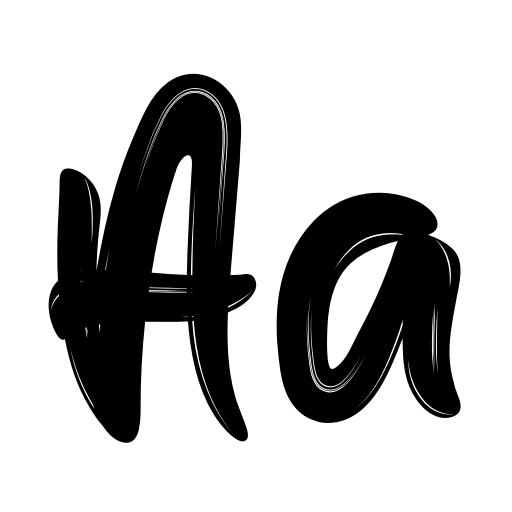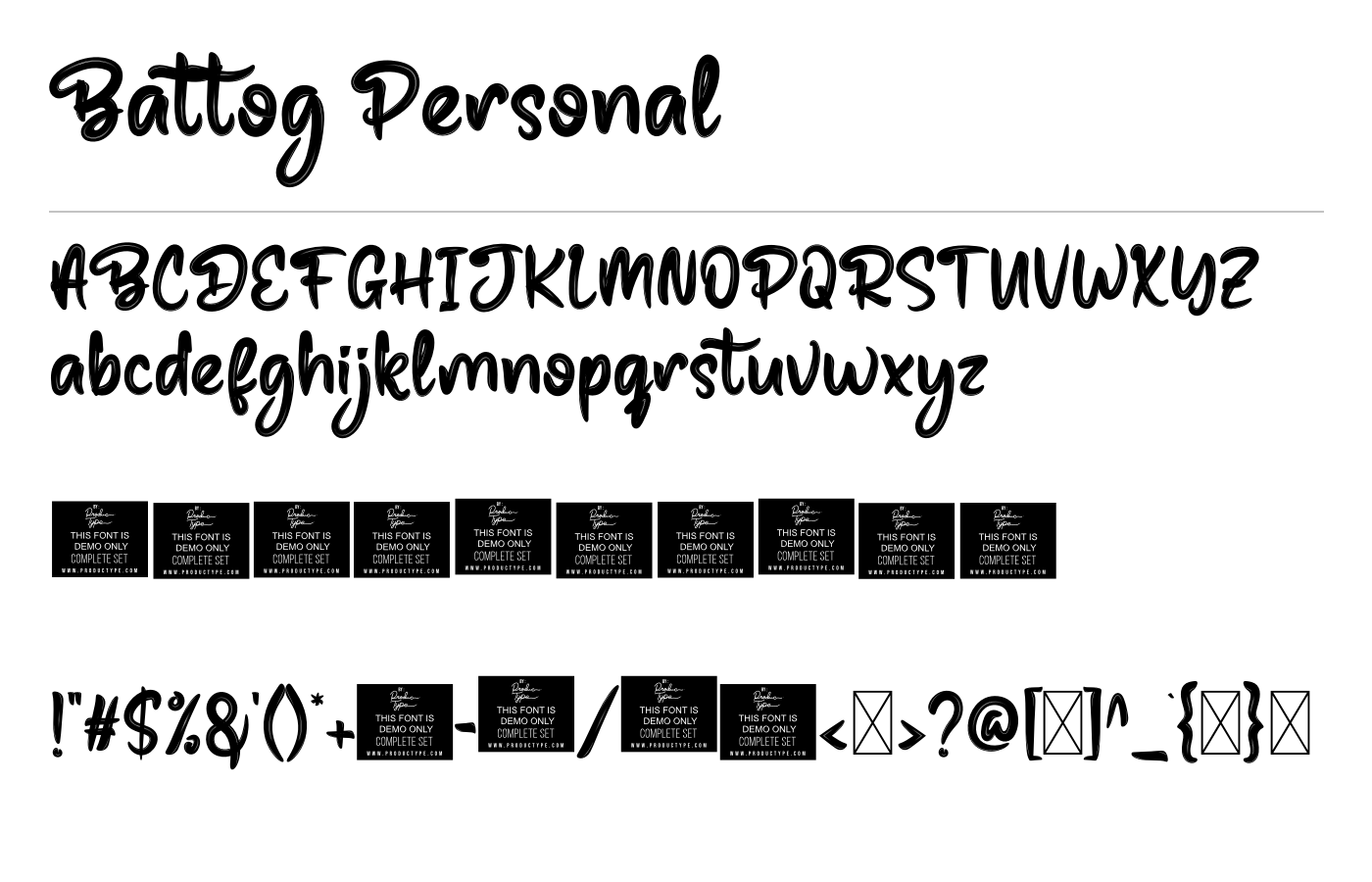
Battog Personal is a playful and lively script font with a hand-drawn feel, featuring bold, rounded strokes and a casual, friendly charm. Its expressive letterforms work well for creative branding, invitations, and informal headlines, adding a personal and approachable touch to any design. This font is ideal for projects seeking warmth and personality without sacrificing legibility.
Battog Personal Font
About Battog Personal Font